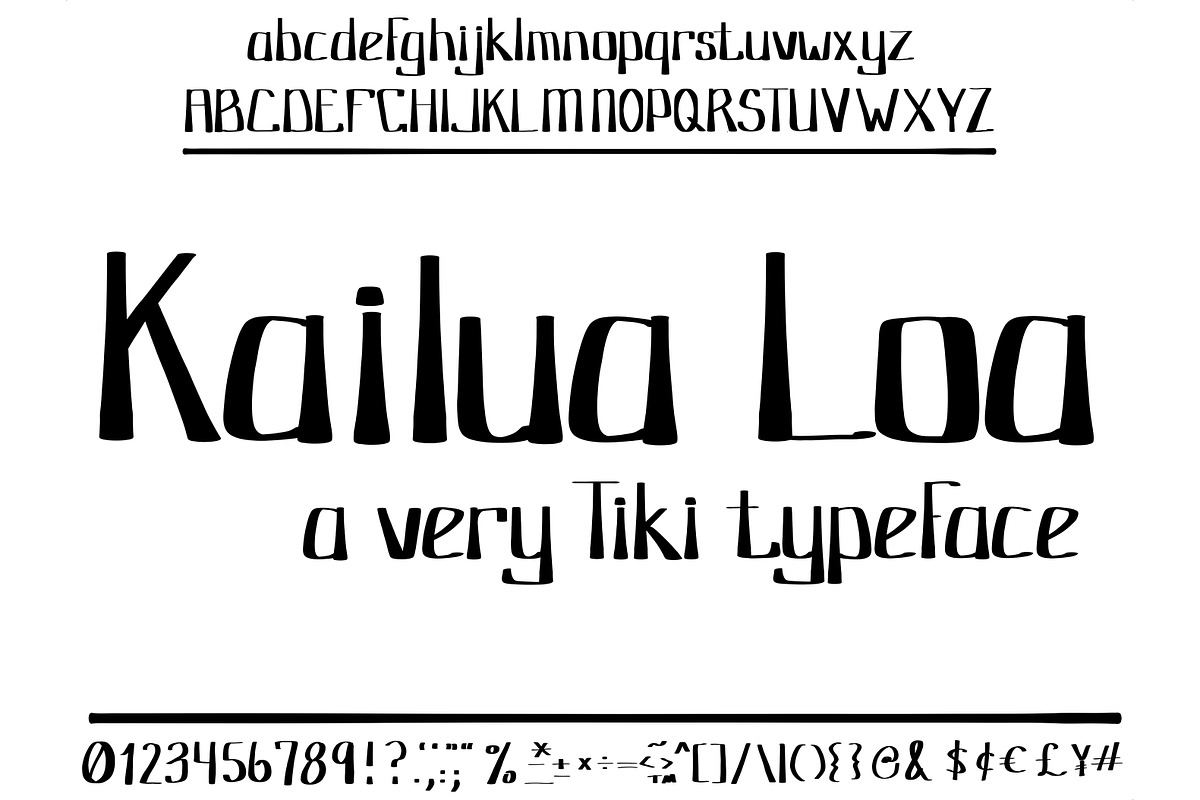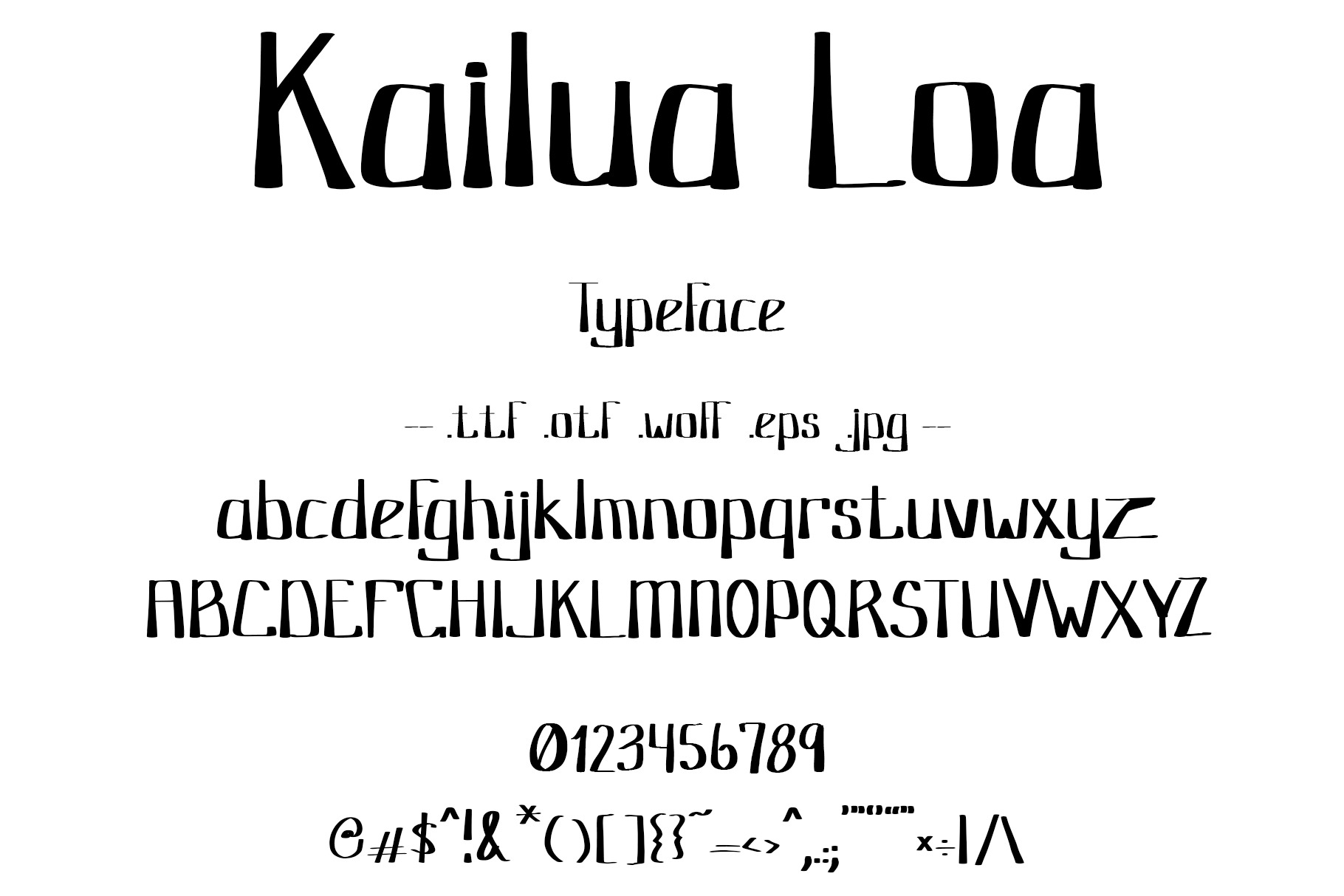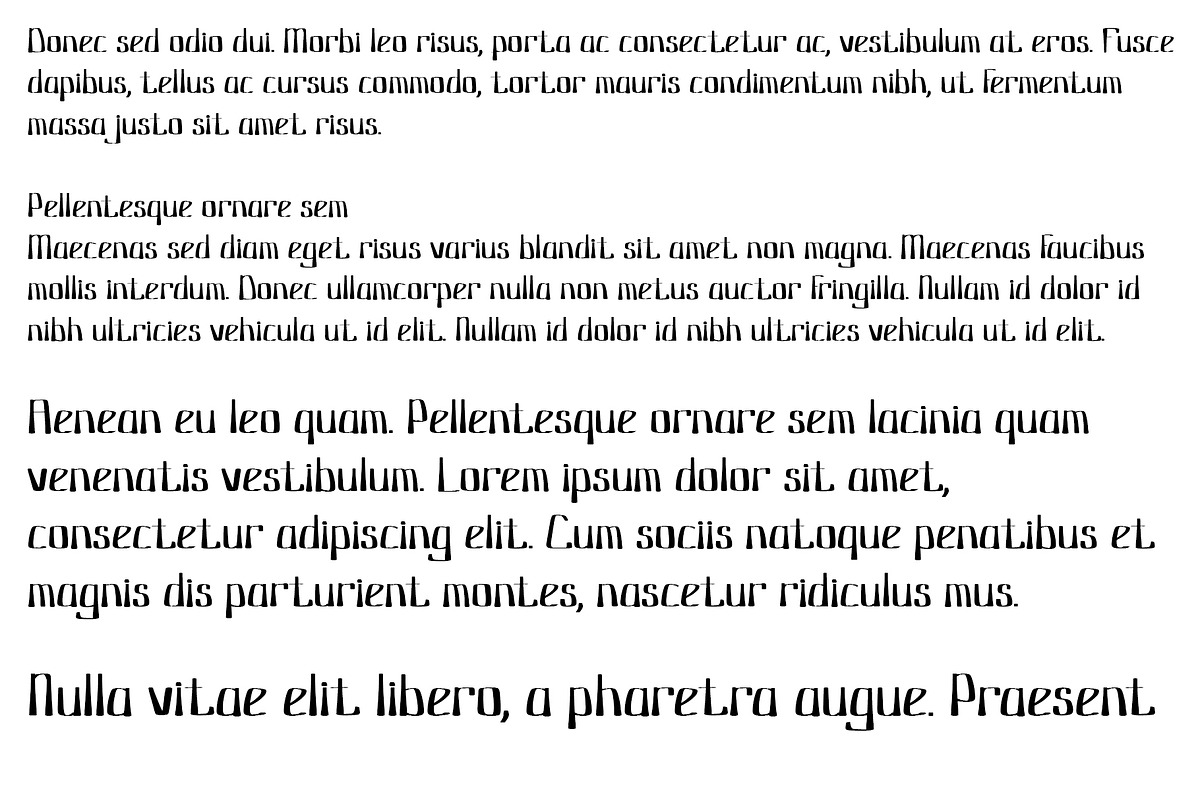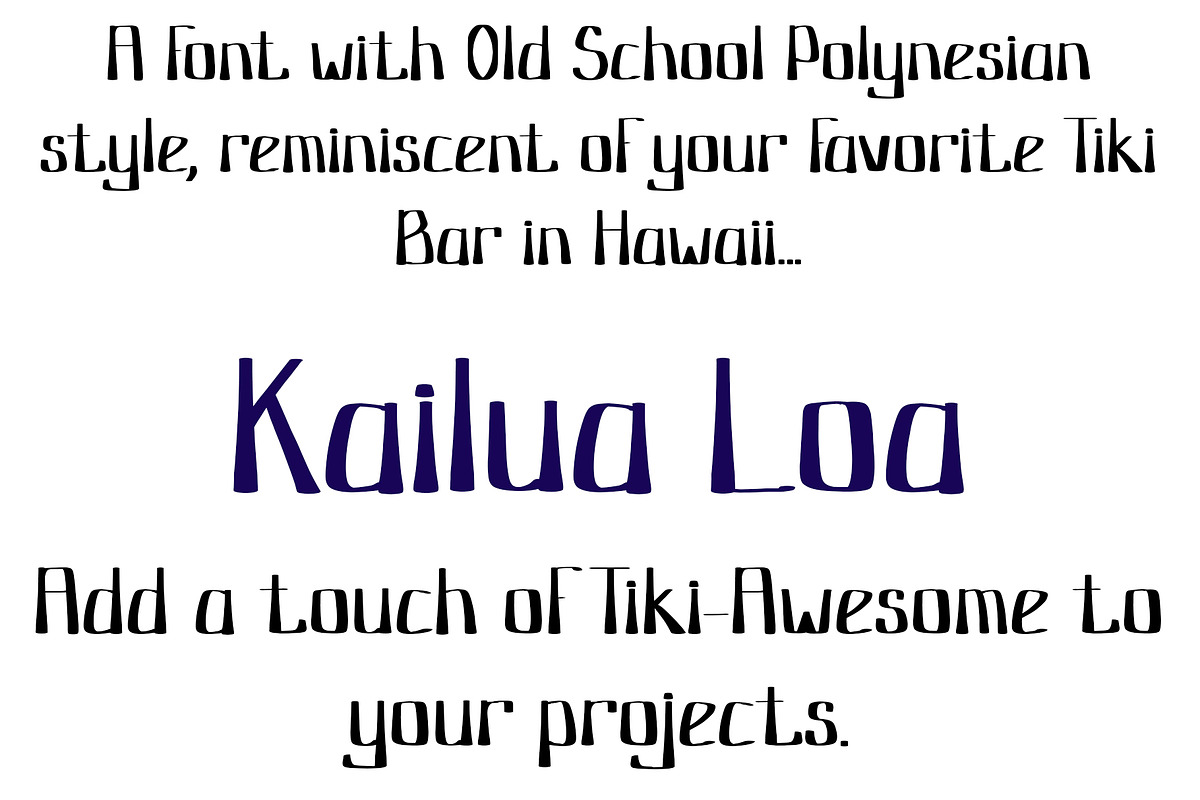
Font Tiki Polynesian Hawaiian Style
Hand drawn font has a Hawaiian, Polynesian, Island life, Tiki style. Vintage and retro typeface with all symbols and numbers.